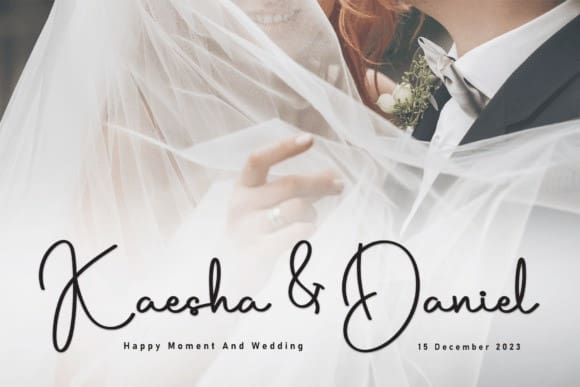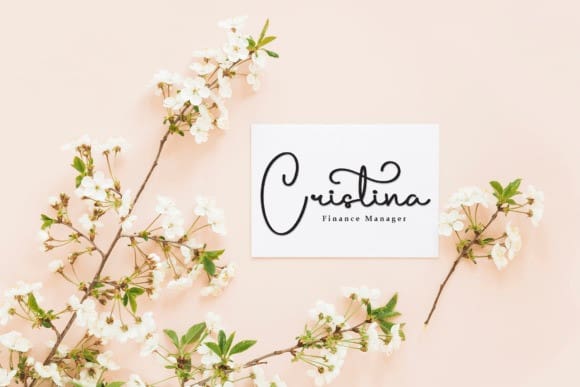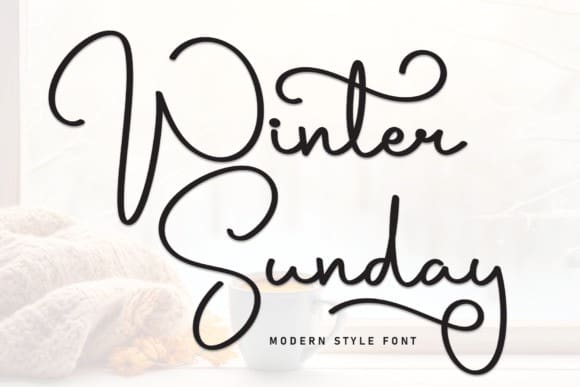
Winter Sunday Script Typeface
Winter Sunday Script Typefaceis an enchanting handwritten font. This versatile font has a wide spectrum of applications ranging from greeting cards to headlines and is guaranteed to add a friendly feel to your next project.